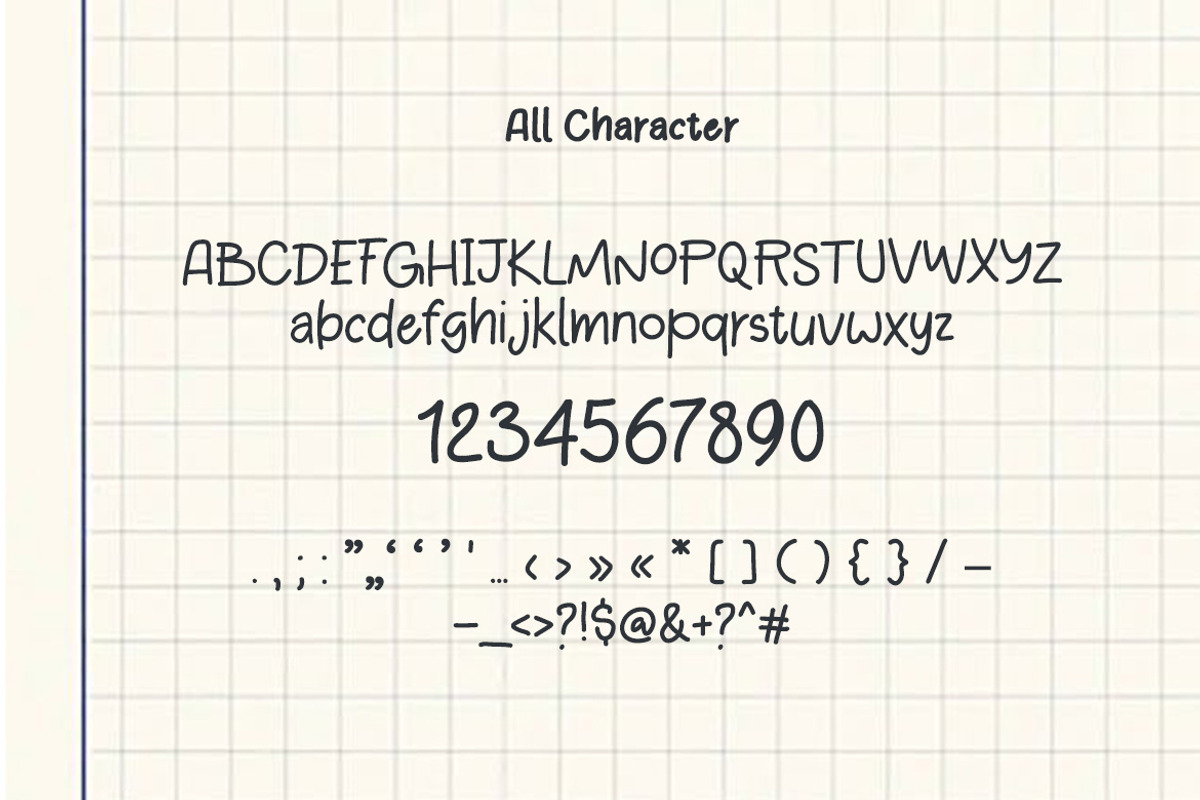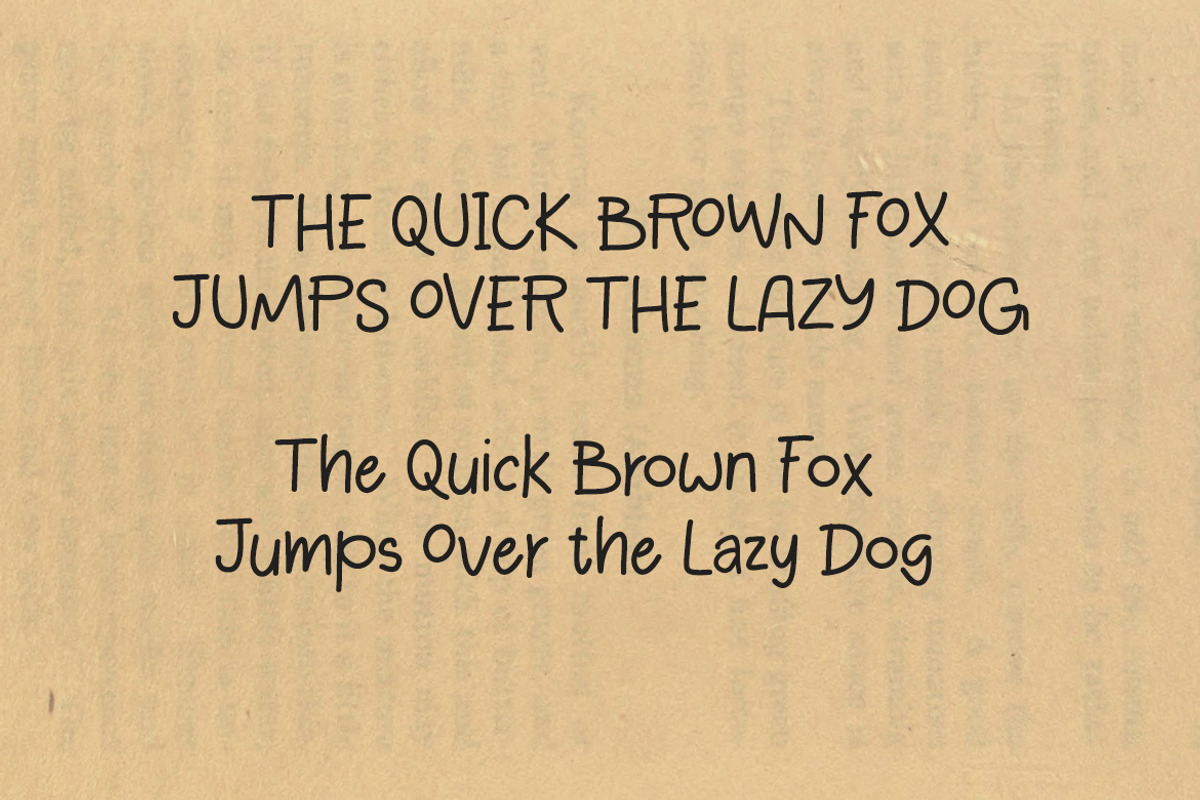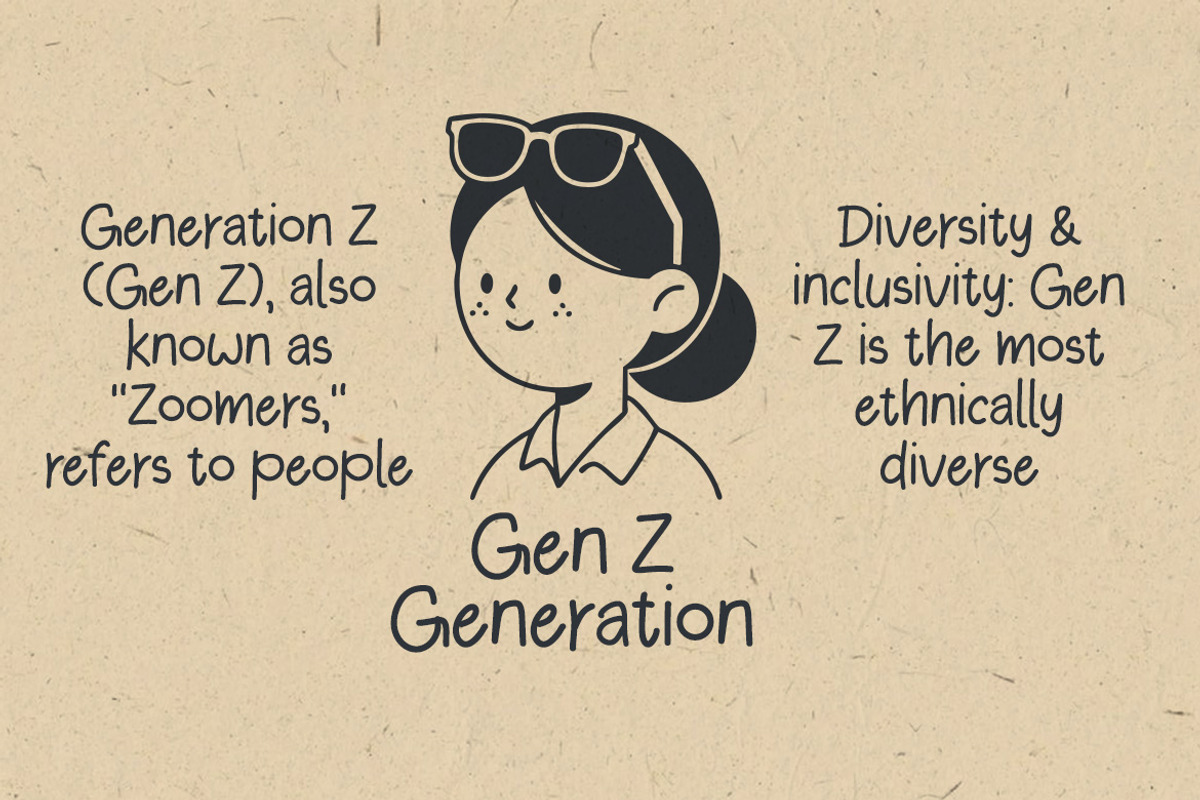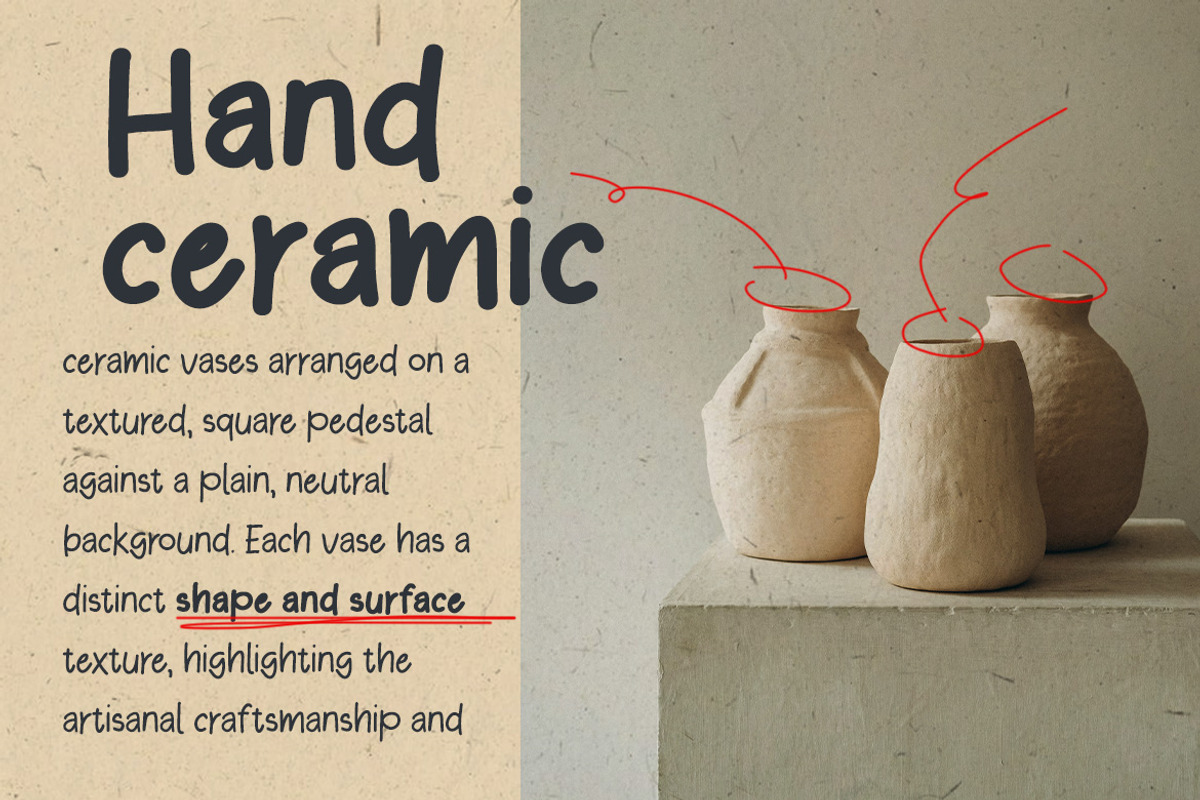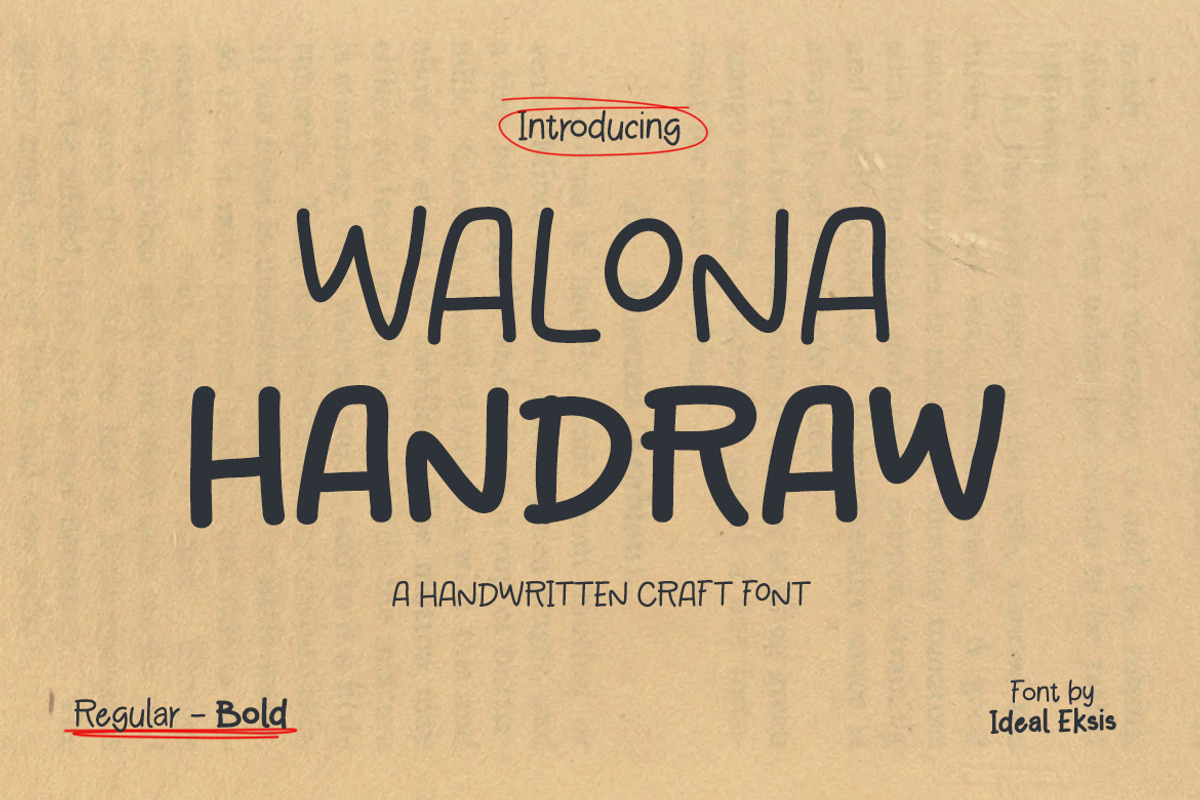
Walona Handraw
This typeface features a charming, organic aesthetic characterized by its hand-drawn appearance. The letterforms exhibit a consistent medium-to-heavy weight with soft, rounded terminals that evoke a friendly and approachable feel. Its strokes are slightly irregular, mimicking the natural flow of a marker or felt-tip pen on paper. The lack of sharp corners and the subtle variations in baseline alignment contribute to its authentic, artisanal vibe. This font is ideal for branding projects that require a personal touch, such as packaging for handmade goods, greeting cards, or whimsical social media graphics.
Lowercase
Numerals